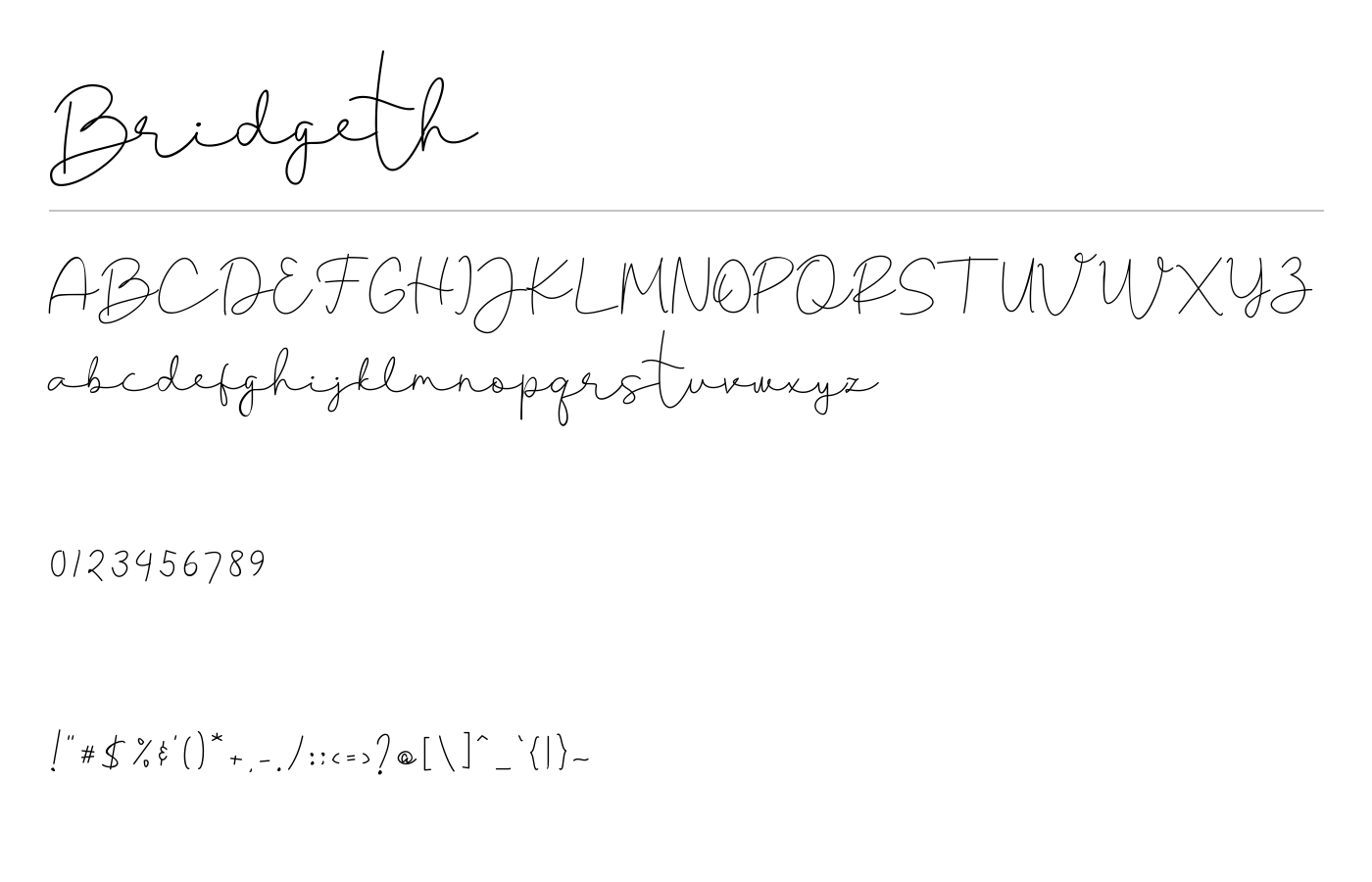
Bridgeth Font is a delicate, thin-script typeface that mimics elegant, hand-drawn handwriting with a light and airy feel. Its slender, flowing strokes and tall x-height give it a modern yet personal touch, making it perfect for invitations, branding, and creative projects that seek a refined and approachable style. The font works best in designs that aim for a soft, intimate atmosphere, such as fashion labels, wedding materials, or lifestyle blogs.
Bridgeth Font